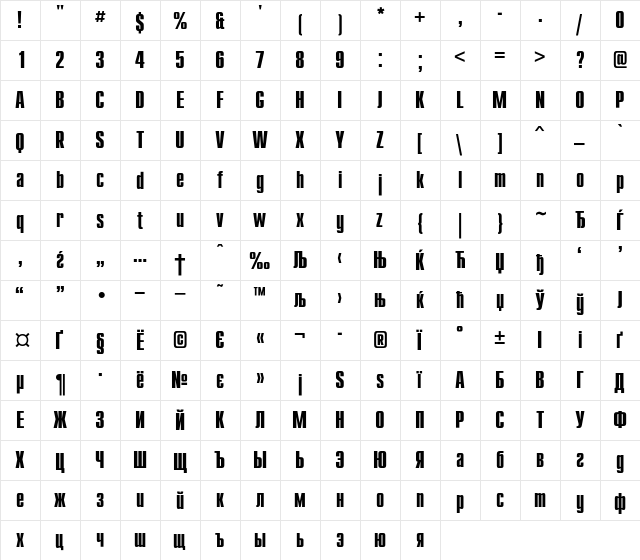
CompactC Regular Font Preview
CompactC Regular
CompactC Regular Font Details
Design Context for CompactC Typeface
CompactC is a composed and adaptable typeface that performs quietly and consistently across a wide range of design contexts. Its narrow stance lets it pack a punch even in space-constrained designs.